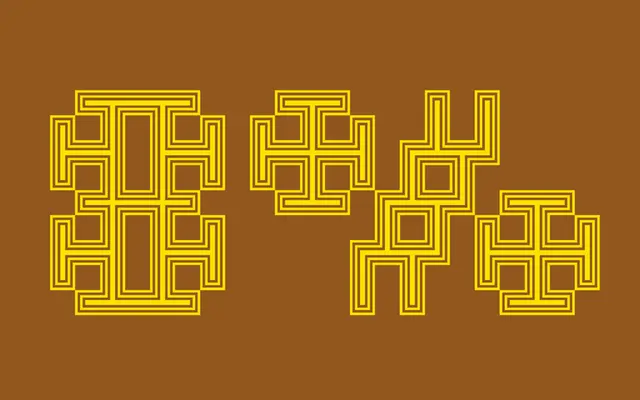
Alterego
A pixel-grid display family by Pieter van Rosmalen, built from overlapping bitmap layers that can be individually coloured or animated to produce depth from a two-dimensional structure.
Originating in 2001 as a Photoshop experiment layering identical bitmap letters with varying transparency, Alterego was fully developed and released in 2018 with five weights and three Big display variants. The stroke pattern progresses from an open waffle grid in Thin to a dense closed square mesh in Bold, and because all styles share identical glyph widths, they are designed to be stacked, coloured independently or animated. Despite its experimental nature, the family carries a full Latin Extended character set with Vietnamese, Greek, Extended Cyrillic and Hebrew support.
Alterego is a pixel-derived modular display typeface built from overlapping bitmap layers; its criss-cross stroke structure and grid-based construction place it firmly in the modular/pixel display genre.